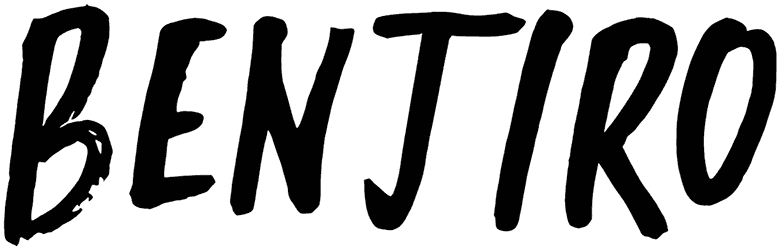
Benjiro Font
Did anyone say they wanted their words to feature a tough attitude? Then you should be so happy about finding Benjiro, a high-quality brush font of RB that brings out that fighter in any of your designs.
So don’t say we didn’t tell you already about what a great match it makes for your karate posters, gym banners, and other sports designs. But before anything else, make sure you’re not bothered by the incomplete set of numbers in this all-caps font.